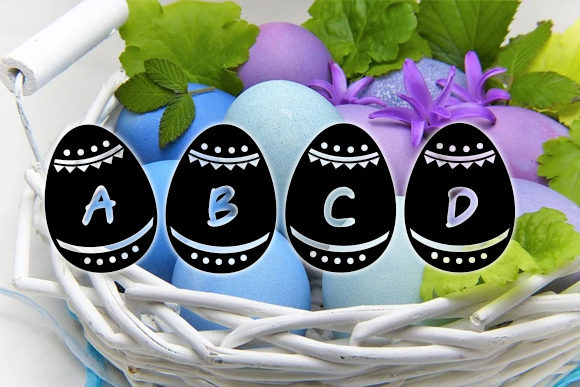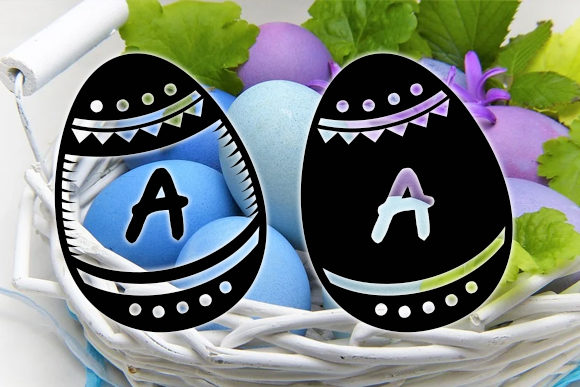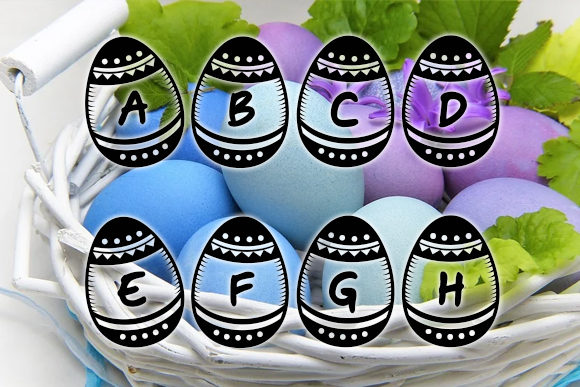
Easter Time Font: A Lovely Decorative Font to Elevate Your Easter Crafts
Are you looking for a unique and creative way to add a personal touch to your Easter crafts? Look no further than the Easter Time Font, a lovely decorative font that features an Easter Egg ornament on each letter. This original look is sure to appeal to a wide range of crafty ideas, from letterheads and titles to stationery and more.
What is Easter Time Font?
Easter Time Font is a decorative font that has been specifically designed to capture the spirit of Easter. Each letter of the alphabet features a beautiful Easter Egg ornament, making it the perfect addition to any Easter-themed craft project. Whether you’re a designer, crafter, or DIY enthusiast, this font is sure to inspire your creativity and help you create unique and eye-catching designs.
Features of Easter Time Font
So, what makes Easter Time Font so special? Here are just a few of its key features:
• Easter Egg Ornaments: Each letter of the alphabet features a beautiful Easter Egg ornament, adding a touch of festive fun to your designs.
• Decorative Style: The font has a decorative style that is perfect for creating eye-catching titles, headings, and other design elements.
• Unique and Original: The Easter Time Font has a unique and original look that will set your designs apart from the crowd.
• Versatile: The font can be used for a wide range of crafty ideas, from letterheads and titles to stationery and more.
Uses for Easter Time Font
So, what can you use the Easter Time Font for? The possibilities are endless! Here are a few ideas to get you started:
• Easter Cards and Invitations: Use the Easter Time Font to create beautiful and unique Easter cards and invitations.
• Stationery: Add a touch of Easter fun to your stationery with the Easter Time Font.
• Titles and Headings: Use the font to create eye-catching titles and headings for your Easter-themed craft projects.
• Letterheads: Create custom letterheads with the Easter Time Font for a unique and festive touch.
Tips for Using Easter Time Font
Here are a few tips for using the Easter Time Font:
• Experiment with Colors: Try out different colors and color combinations to see what works best with the Easter Time Font.
• Play with Sizes: Experiment with different font sizes to see what works best for your design.
• Combine with Other Fonts: Try combining the Easter Time Font with other fonts to create a unique and interesting look.
The Easter Time Font is a lovely decorative font that is sure to add a touch of festive fun to your Easter crafts. With its unique and original look, versatile uses, and easy-to-use design, this font is perfect for designers, crafters, and DIY enthusiasts of all levels. So why not give it a try and see what creative and eye-catching designs you can come up with?
Whether you’re looking to create Easter cards and invitations, stationery, titles and headings, or letterheads, the Easter Time Font is the perfect choice. So go ahead, get creative, and have fun with the Easter Time Font!